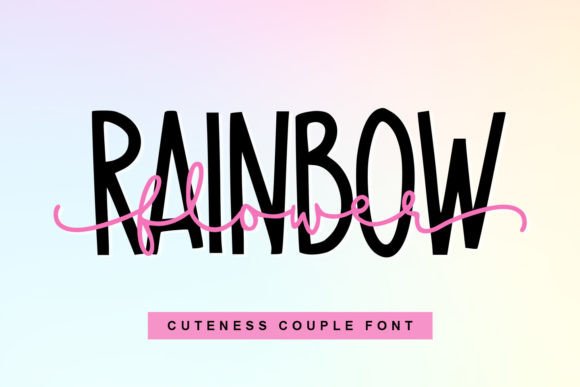
Prepare yourself to be smitten with Rainbow Flower Font, the epitome of charm, meticulously crafted to infuse your designs with a touch of elegance and whimsy. This exquisite script font, the brainchild of the ingenious Abodaniel, is a testament to the power of creativity and innovation.
Our Rainbow Flower Font belongs to the esteemed family of script fonts, renowned for their enchanting and graceful strokes, reminiscent of the flowing water of a tranquil stream. It effortlessly captures the essence of joyfulness and exuberance, making it the perfect choice for expressing your innermost thoughts and emotions through the written word.
With Rainbow Flower Font as your creative ally, transform your projects into captivating masterpieces. Its versatility shines through, seamlessly adapting to a myriad of applications. Envision your wedding invitations adorned with this font, exuding an aura of romance and sophistication. Create captivating logos that leave an enduring impression, embodying the essence of your brand. Unleash your creativity with eye-catching t-shirt designs that reflect your unique style. Transform tote bags into works of art, expressing your individuality with every stitch.
Step into the world of Rainbow Flower Font and discover a realm of boundless possibilities. Design greeting cards that convey heartfelt sentiments, leaving a lasting impact on the recipients. Craft banners that command attention, becoming the focal point of any celebration. Engage your audience with captivating social media posts, showcasing the beauty and charm of this remarkable font.
Rainbow Flower Font is more than just a font; it's an invitation to embark on a creative journey, a catalyst for turning your artistic aspirations into tangible realities. Its intricate details and enchanting curves will elevate your designs to new heights, capturing hearts and imaginations alike.
Join the ranks of discerning designers and creatives who have embraced Rainbow Flower Font, propelling their projects to unprecedented levels of success. Allow this font to be your guiding light, illuminating the path to creative fulfillment and leaving an enduring legacy of beauty and inspiration.